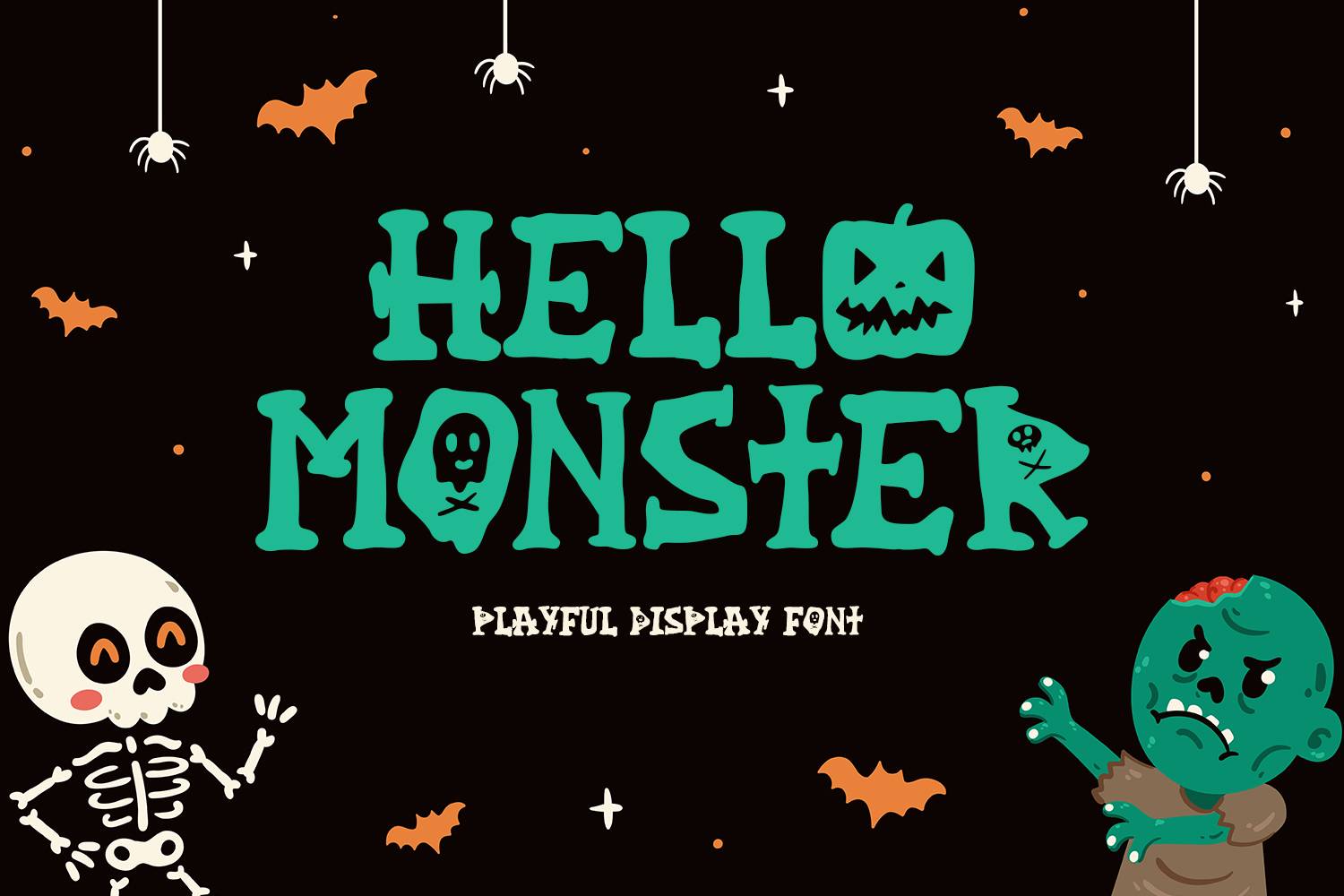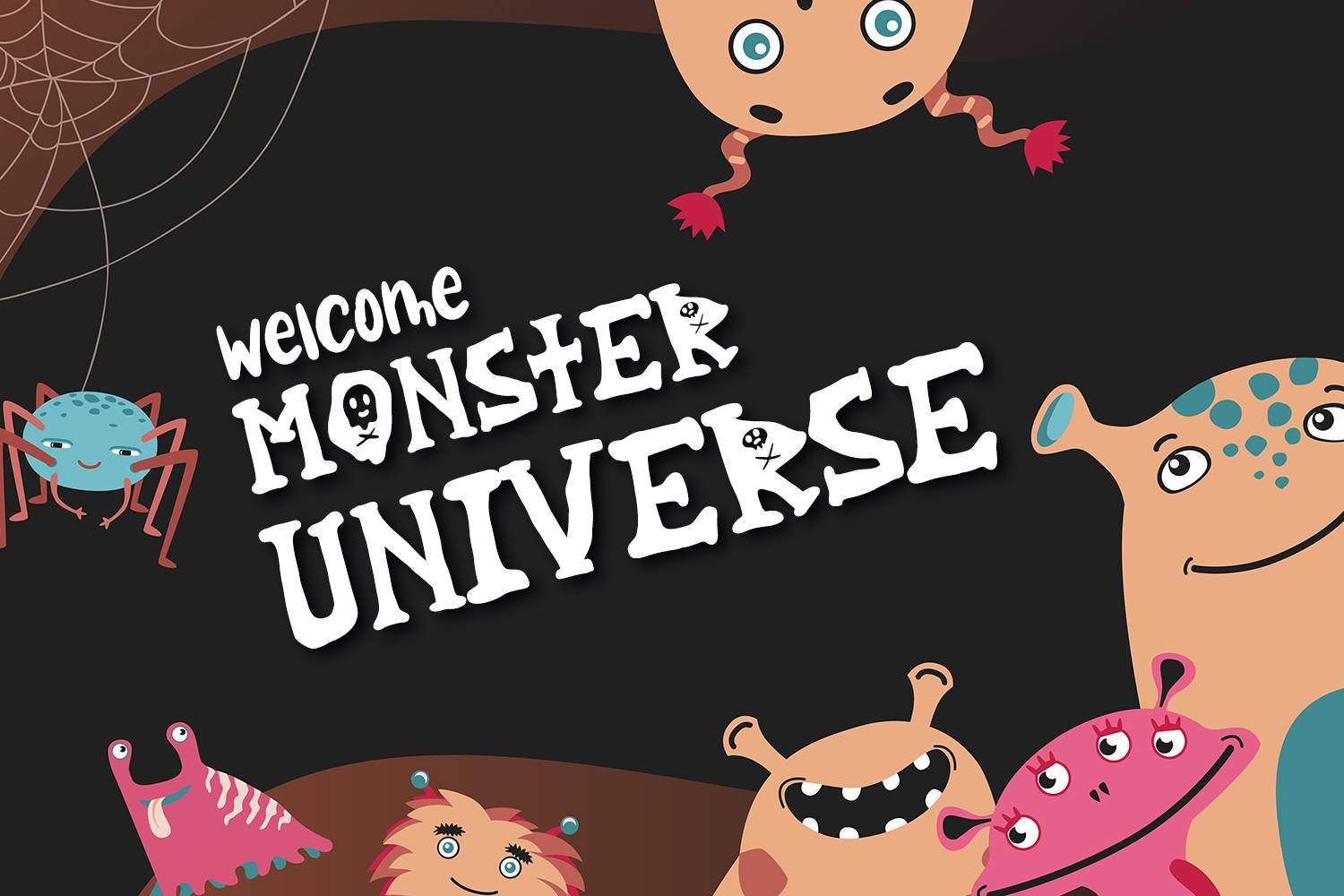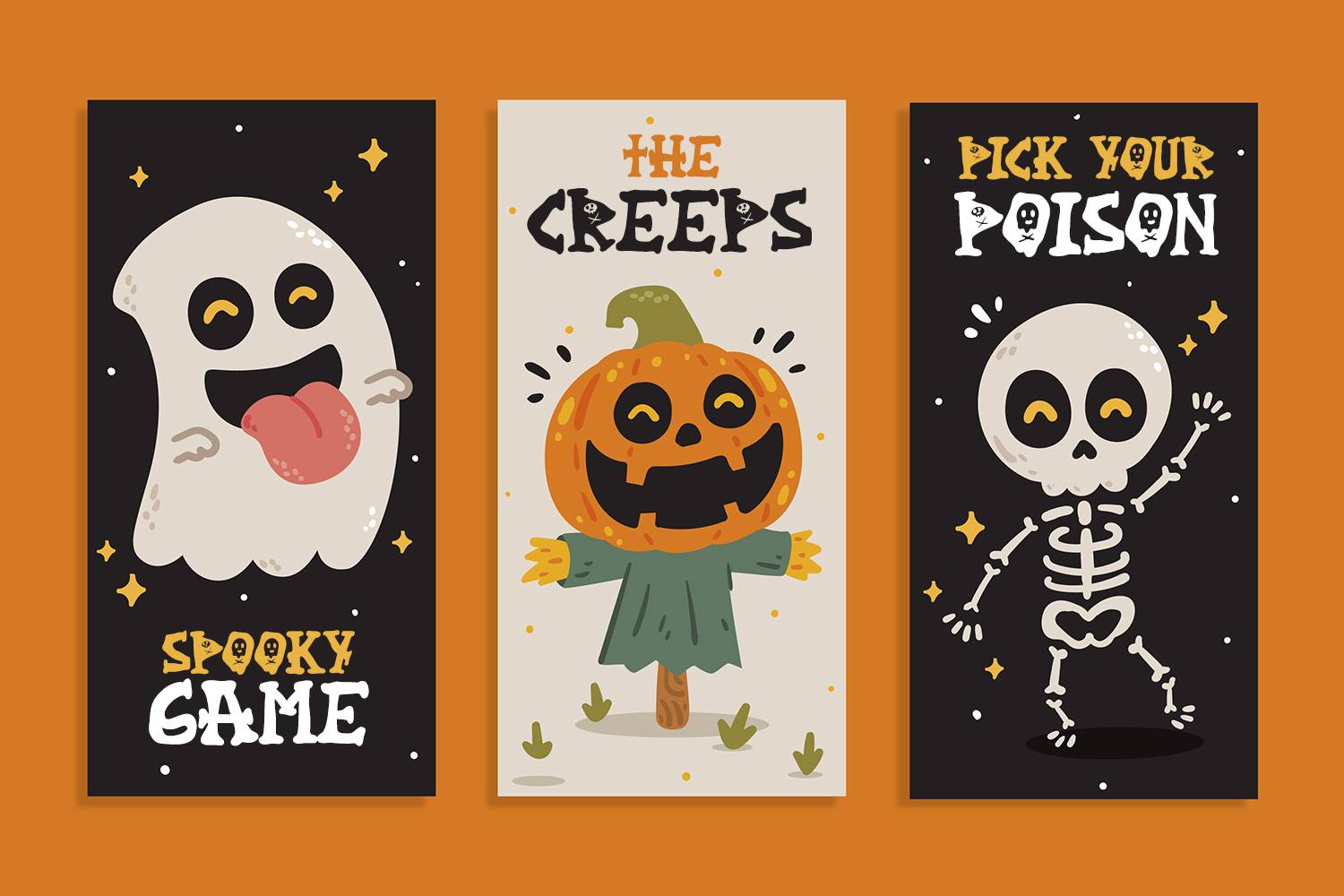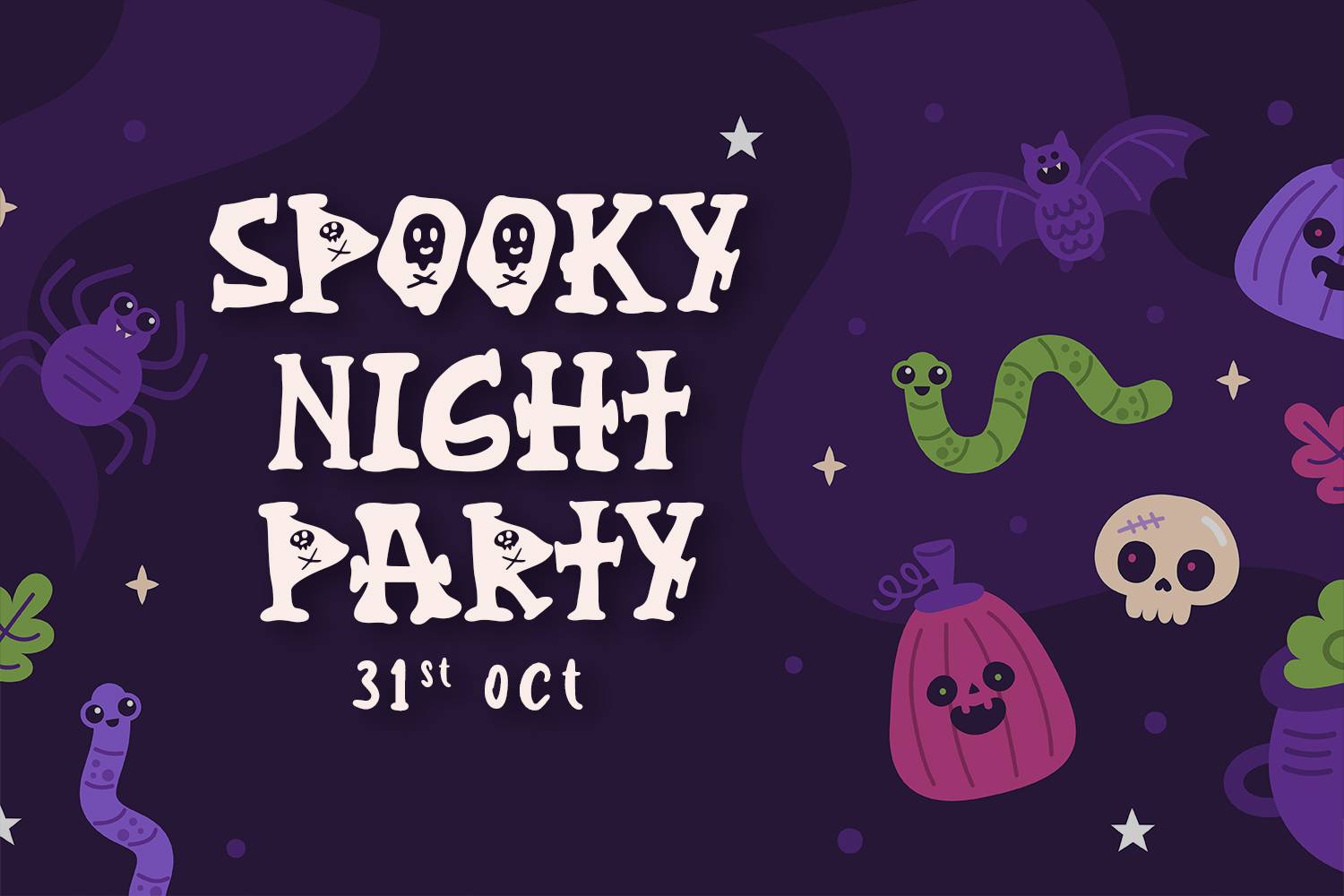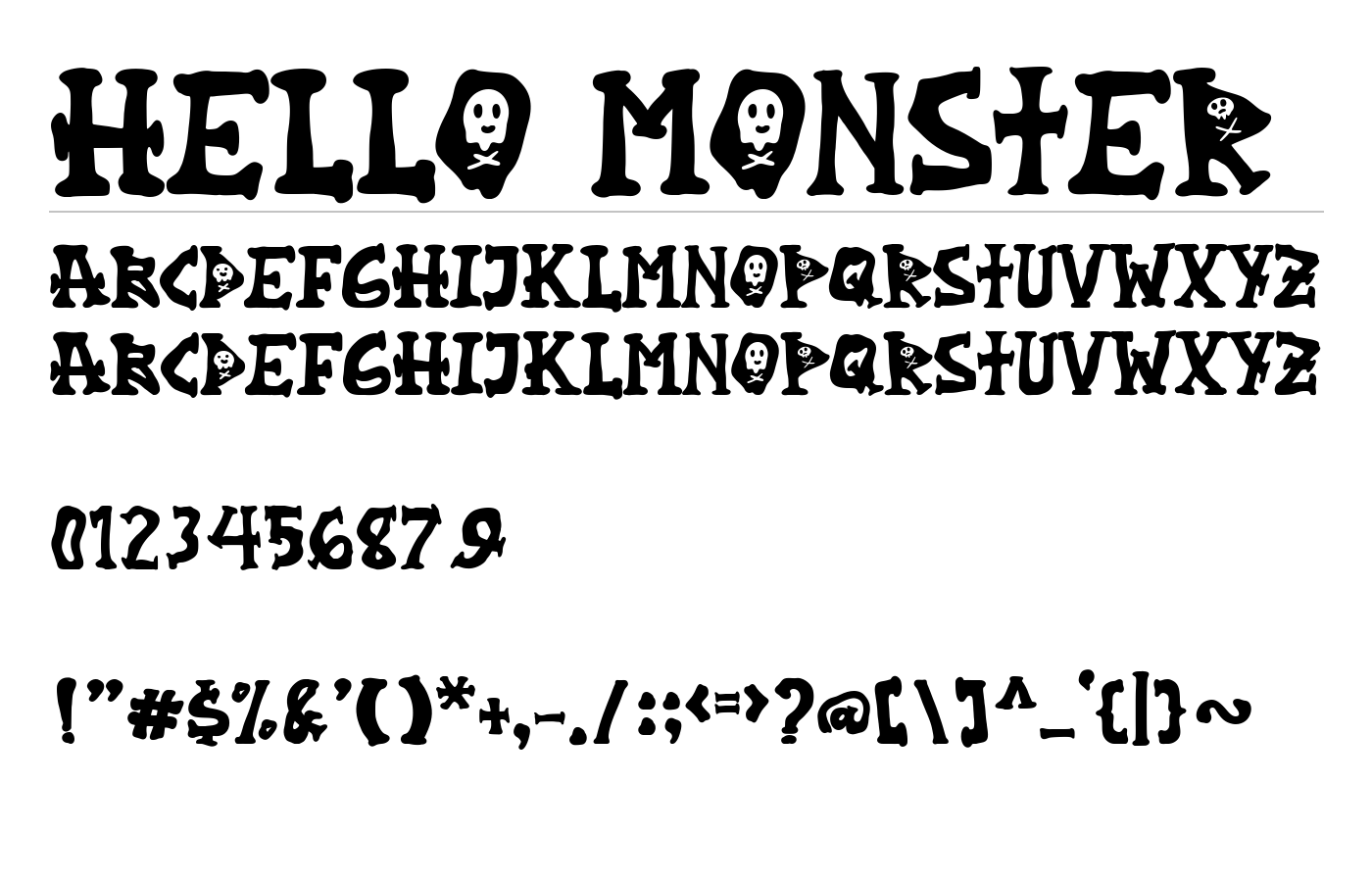
Hello Monster is a playful, bold display font with quirky, irregular shapes that evoke a spooky, cartoonish feel. Its chunky, uneven letterforms, combined with skull and crossbones motifs, make it perfect for Halloween-themed designs, children’s parties, or any project that wants to convey fun with a hint of eerie charm. This font works well for headlines and logos where a unique, eye-catching personality is needed.
Hello Monster Font
About Hello Monster Font